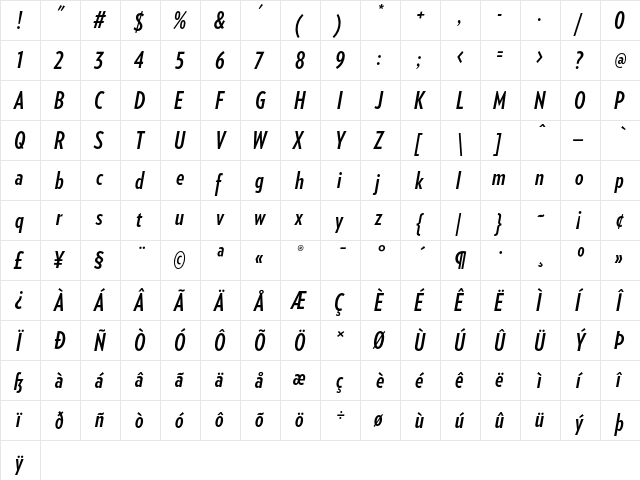
Verlag Compressed Bold Italic Font Preview
| Foundry | Hoefler & Frere-Jones |
| Designer | Hoefler & Frere-Jones |
Design Context for Verlag Compressed Typeface
Verlag Compressed takes a measured approach to typography — its balanced proportions and neutral character make it a reliable workhorse for both digital and print work. The slanted form adds forward momentum and visual energy. The heavy weight commands attention and anchors typographic hierarchies.
Pro Tip: Try Verlag Compressed for annotation and caption copy alongside an upright companion — the contrast in angle creates a dynamic but ordered typographic system.